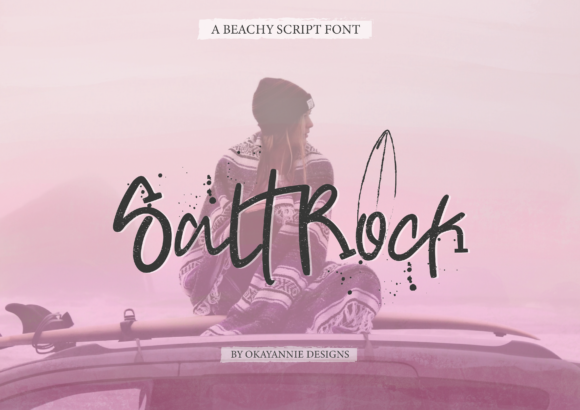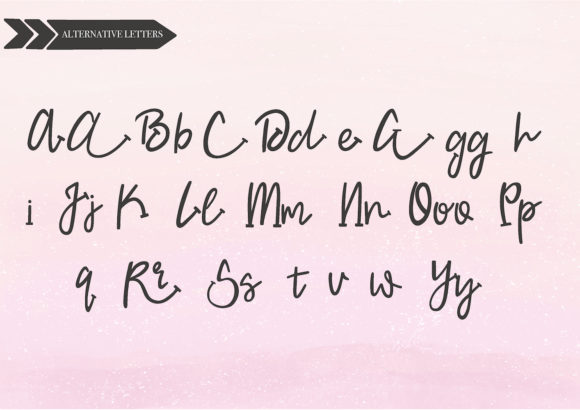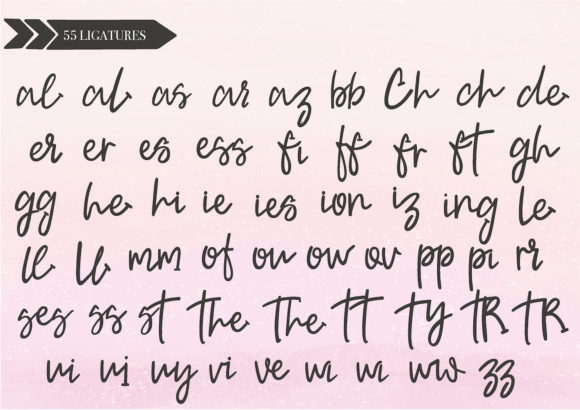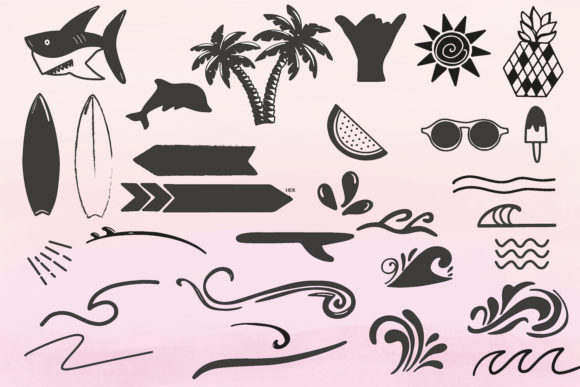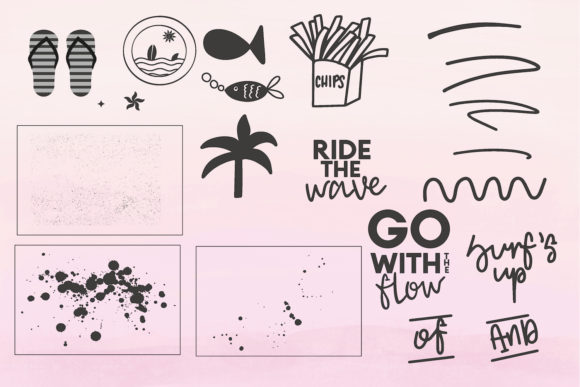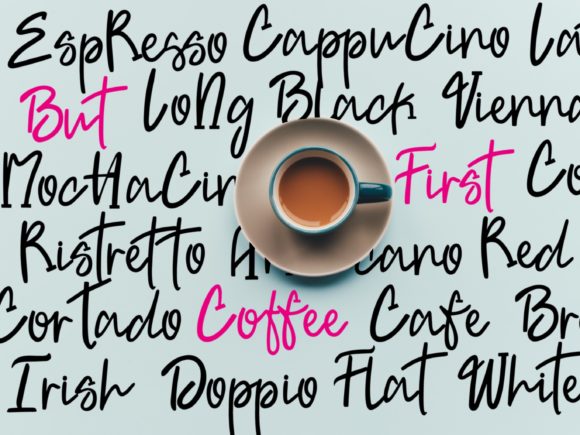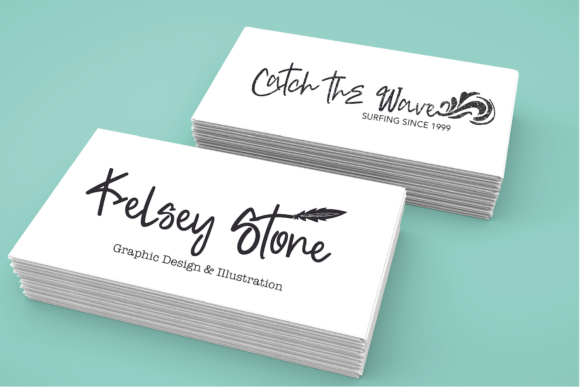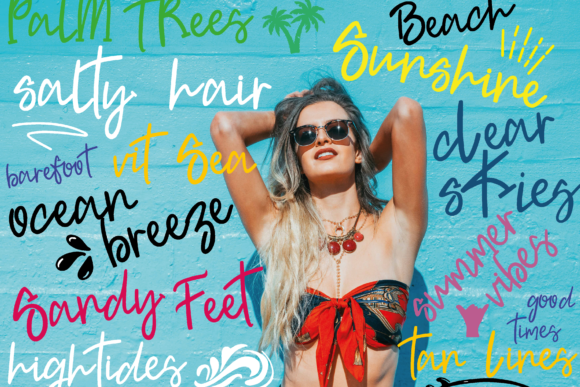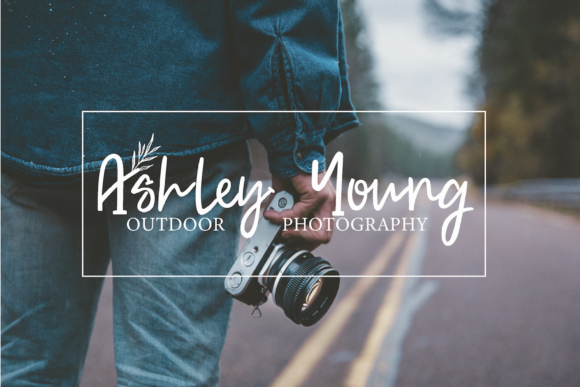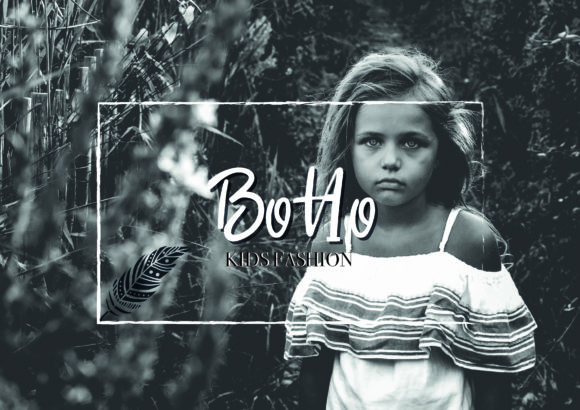
HomeScript FontsSaltRock Font Script Fonts SaltRock Font FacebookXPinterestWhatsApp SaltRock Font Poster 2 SaltRock Font Poster 3 SaltRock Font Poster 4 SaltRock Font Poster 5 SaltRock Font Poster 6 SaltRock Font Poster 7 SaltRock Font Poster 8 SaltRock Font Poster 9 SaltRock Font Poster 10 SaltRock Font Poster 11 SaltRock Font Poster 12 SaltRock Font Poster 13 About SaltRock Font SaltRock is a casual script font with a “beachy” vibe. Fall in love with its playful look & feel! DOWNLOAD NOW People also explored Animals Font Little Font Kawaii Font Photato Chips Font Aljameela Font Osaka Font Amellyta Font Hello Mozza Font Xavierious Letter Font 449 0 TagsSaltRock Font Previous articleBohemia FontNext articleRustic Barnyard Font LEAVE A REPLY Cancel reply Comment: Please enter your comment! Name:* Please enter your name here Email:* You have entered an incorrect email address! Please enter your email address here Website: Save my name, email, and website in this browser for the next time I comment. Personal Use Free Karmatic Arcade Personal Use Free Read more about this font Doriss Girls Family Personal Use Free Read more about this font Legacy Personal Use Free Read more about this font Waturaden Personal Use Free Read more about this font BLOG Top 10 Handwritten Fonts That Elevate Your Designs Top 10 Handwritten Fonts That Will Elevate Your Designs Handwritten fonts bring a warm, personal touch to every creative project. Whether you're designing logos, invitations,... Where to Buy American Fonts Online in 2024 Fonts That Capture the Spirit of New York City Using Fonts in Digital Marketing: Tips to Strengthen Your Brand Identity